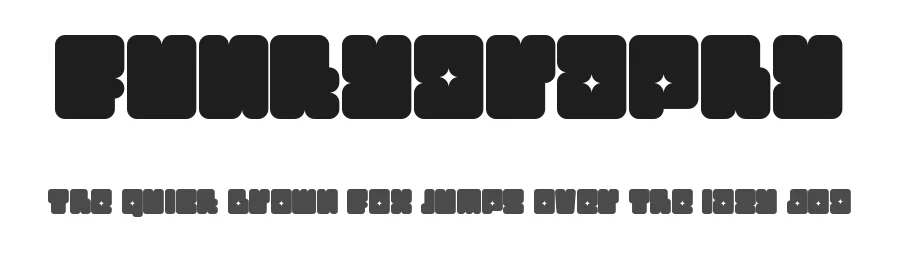
About Creator Font
Creator is a decorative font designed by Vladimir Nikolic. It includes 56 glyphs, a regular weight, TTF (TrueType) format, and 89 languages. Creator is free to download; check the license details on this page before commercial use. Decorative fonts like Creator work best for logos, posters, packaging, and standout headlines.
Creator Font is a decorative font that shines as a display or heading face. Pair it with a clean sans-serif or serif font for body text β the contrast creates a clear hierarchy while the two styles stay balanced and easy to read.